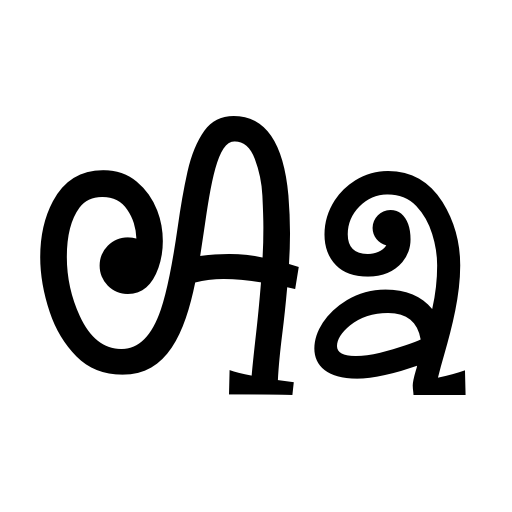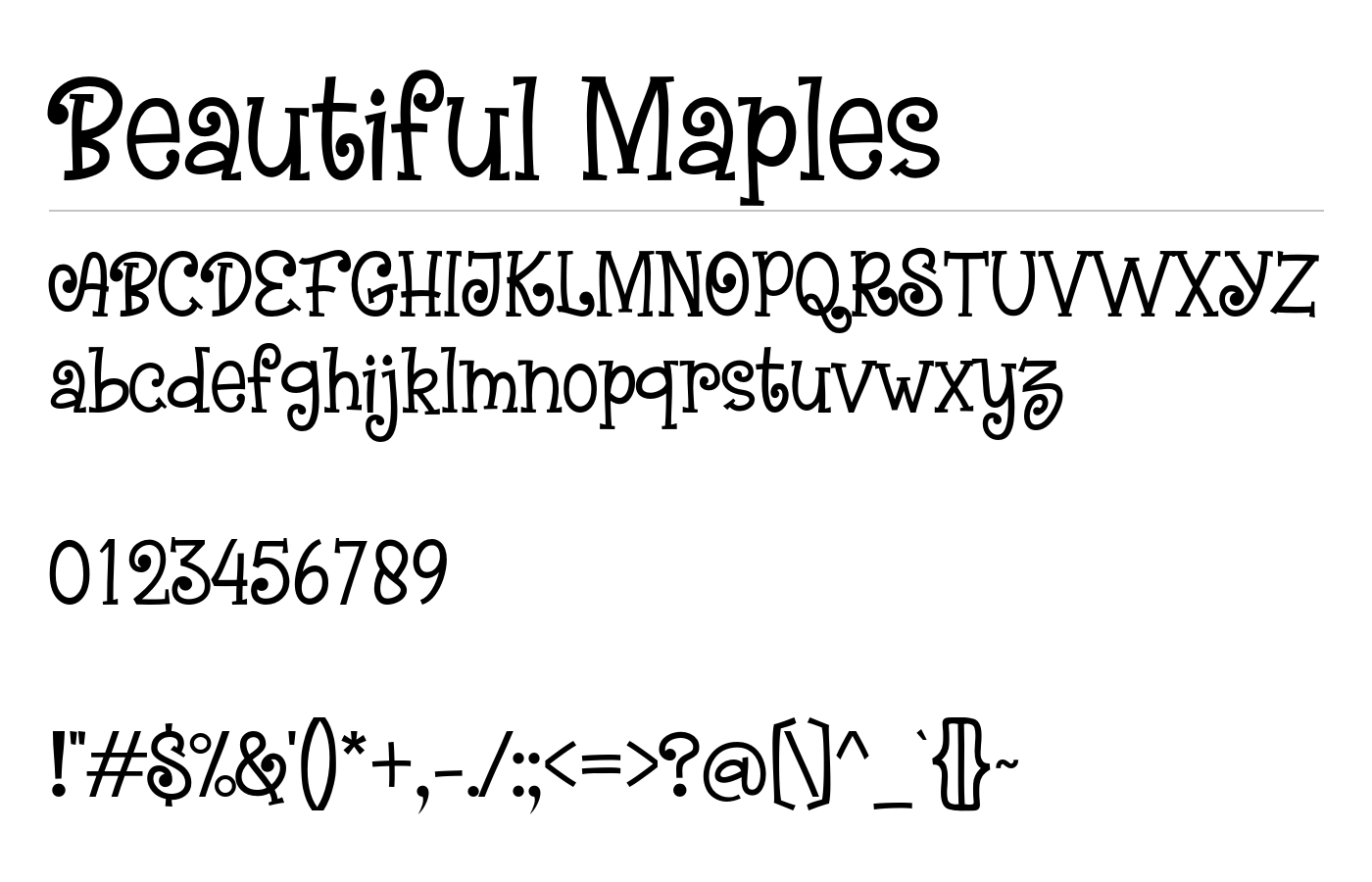
Beautiful Maples is a playful serif font with a whimsical, hand-drawn feel created by its curly terminals and uneven strokes. Its light weight and medium contrast, combined with quirky letterforms and a tall x-height, make it ideal for adding charm and personality to creative projects like children's books, greeting cards, and informal branding that seeks a fun and friendly vibe. This font works best in headlines and display uses where its unique style can shine without sacrificing readability.
Beautiful Maples Font
About Beautiful Maples Font
| Font family | Beautiful Maples Font |
| Designer | Dreamink; Dani; Situjuh Nazara |